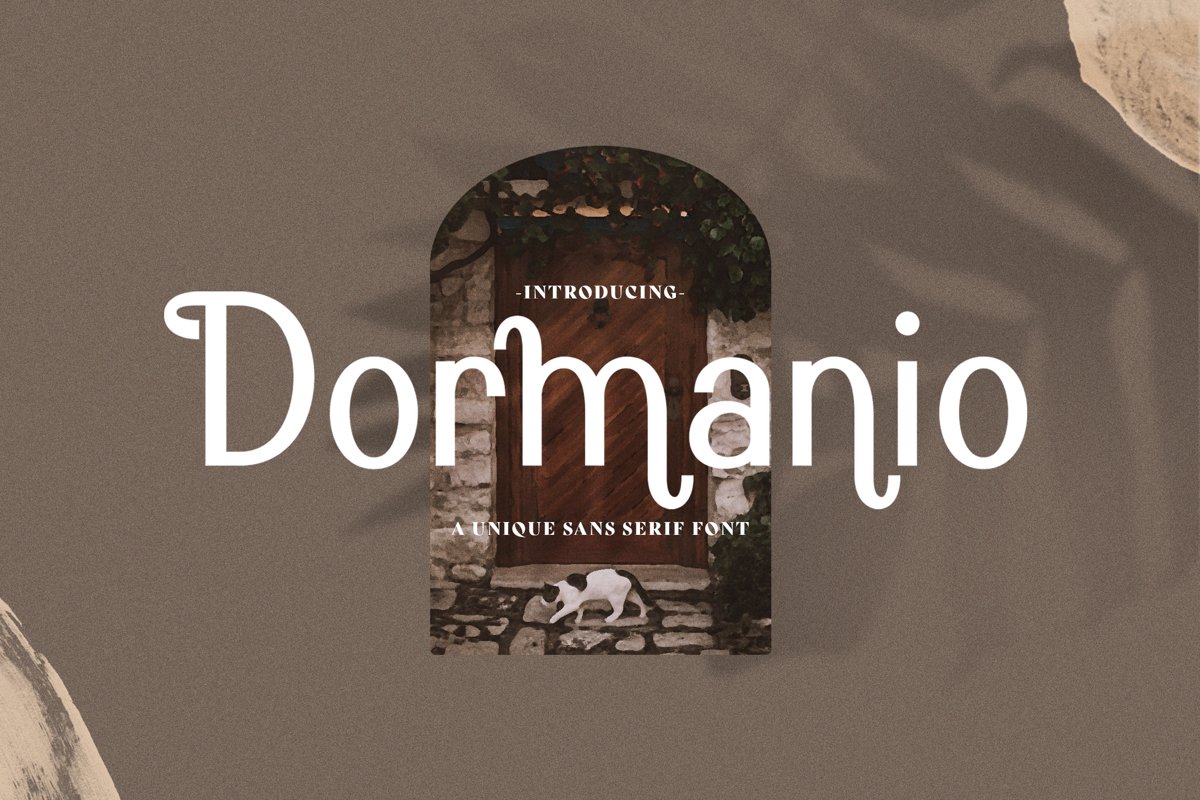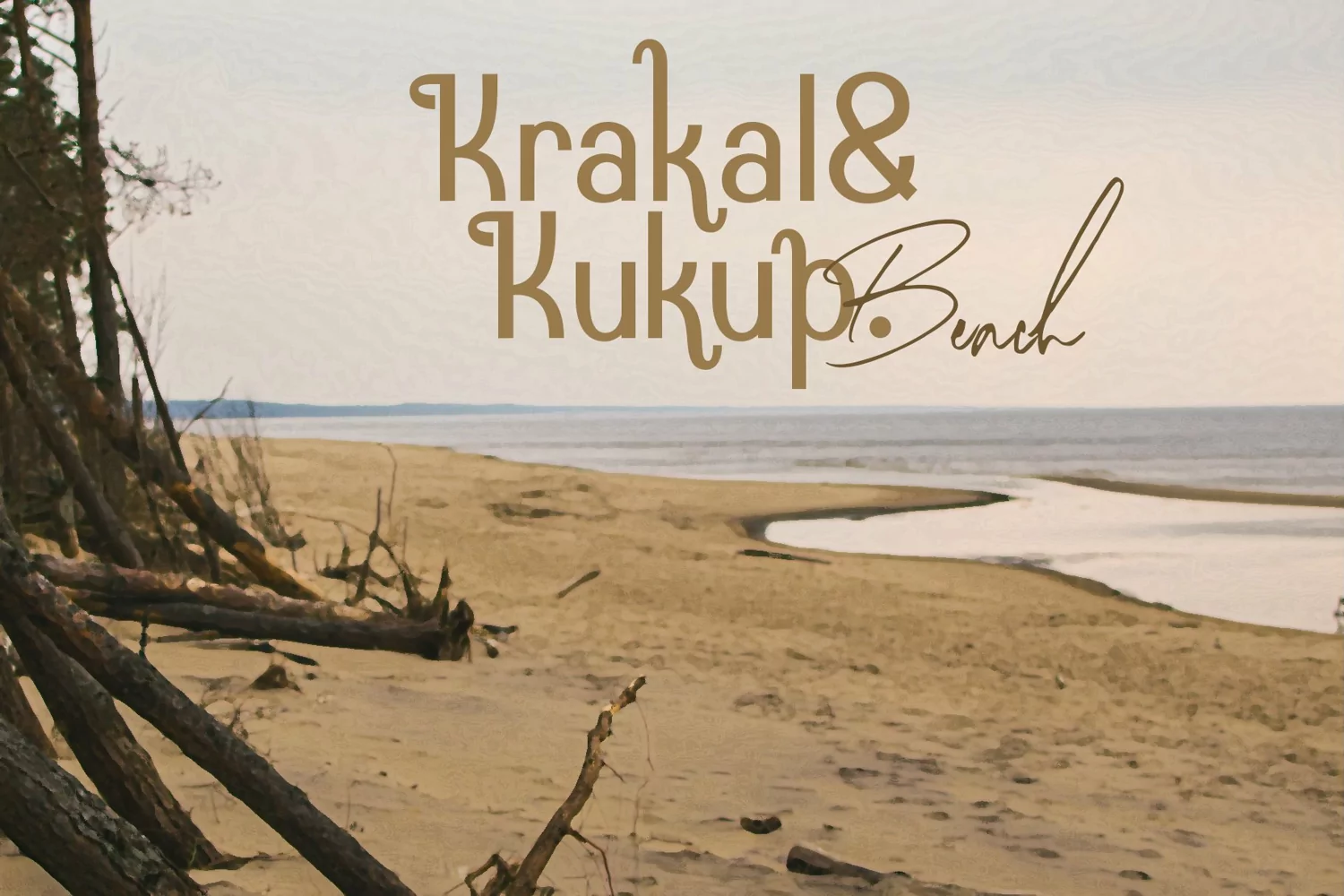
Dormanio is a display sans serif typeface. Perfect for display, poster, quotes, crafting needs, florist needs, wedding needs, business card, signature, packaging, merchandise, branding, logo, logotype, header, tittle, and many more.